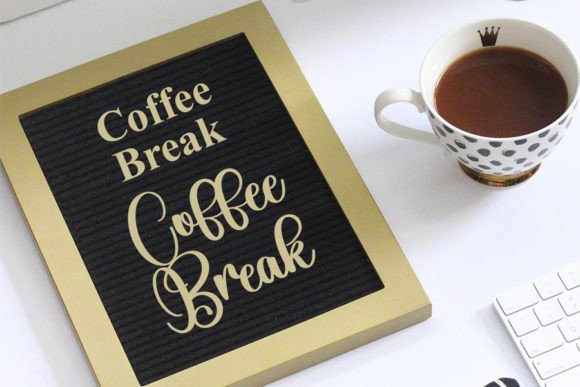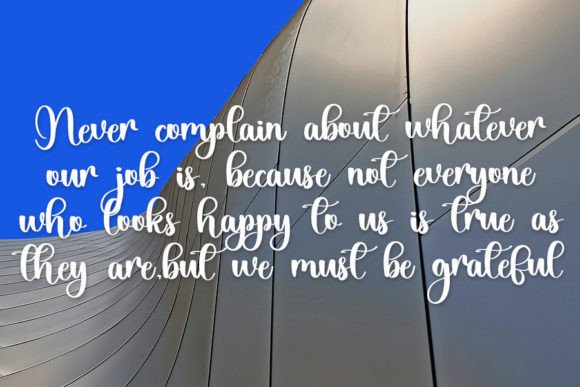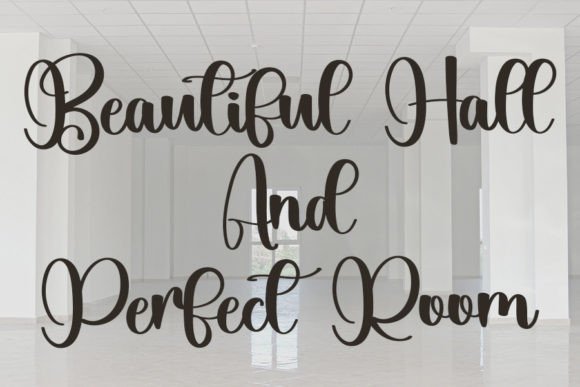
Introduction to Hall Font
Hall is a trendy handwritten font with a contemporary atmosphere and impeccable form, inspired by a timeless classic calligraphy.
It will add elegance and class to any of your design projects .
Key Features of Hall Font
Why Choose Hall Font?